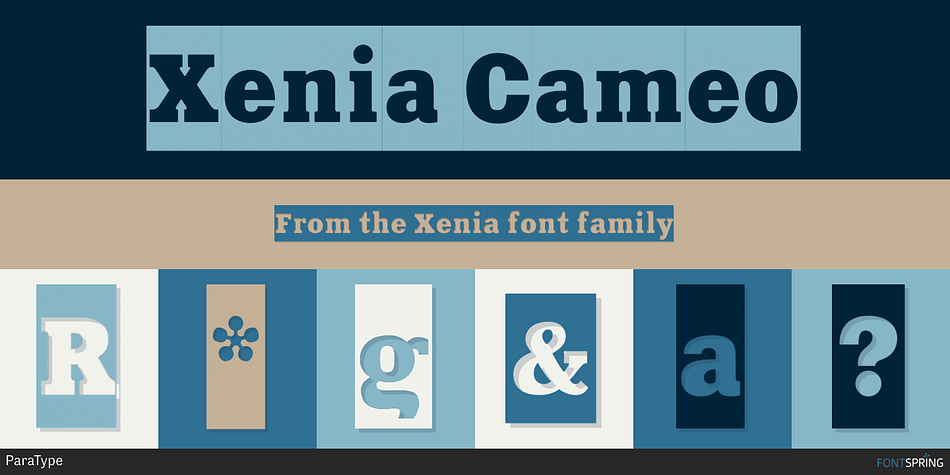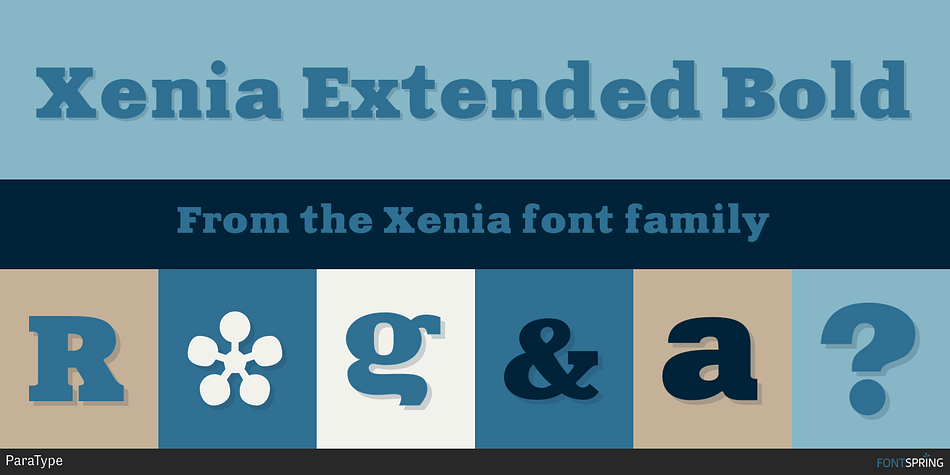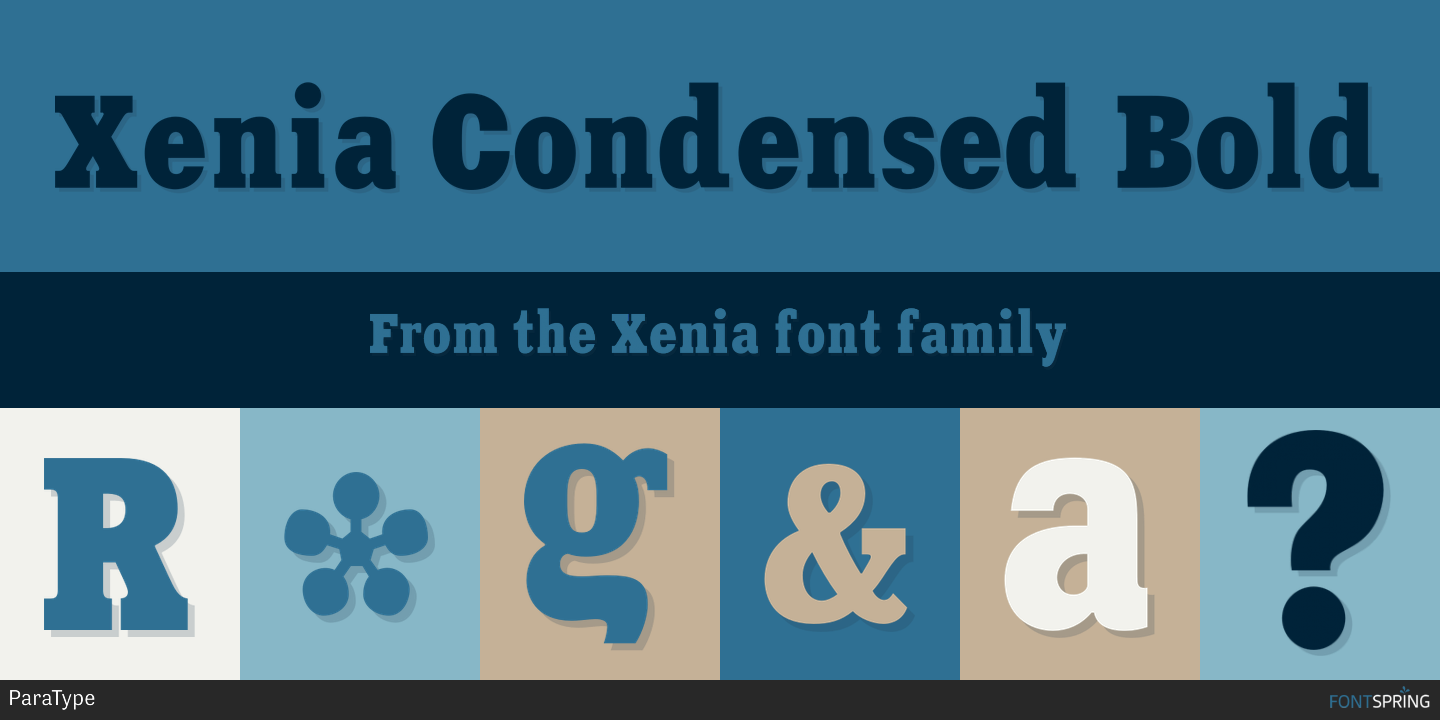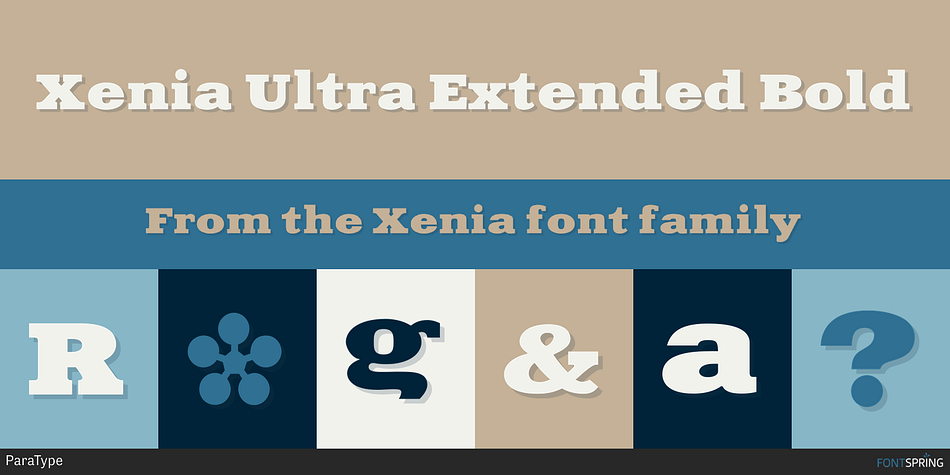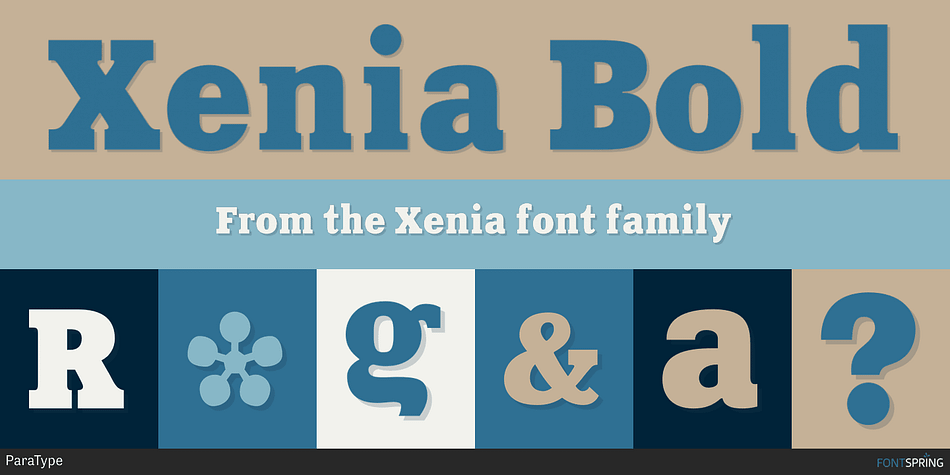
Designed by Lyubov Kuznetsova, Xenia is a slab serif and display slab font family. This typeface has five styles and was published by ParaType.
Xenia was designed for ParaType (ParaGraph) in 1990 by Lyubov Kuznetsova.
It is a bold square-serif style and is best suited for use in advertising and display typography.
The decorative style was added in 1993 by Lyubov Kuznetsova and Alexander Tarbeev.